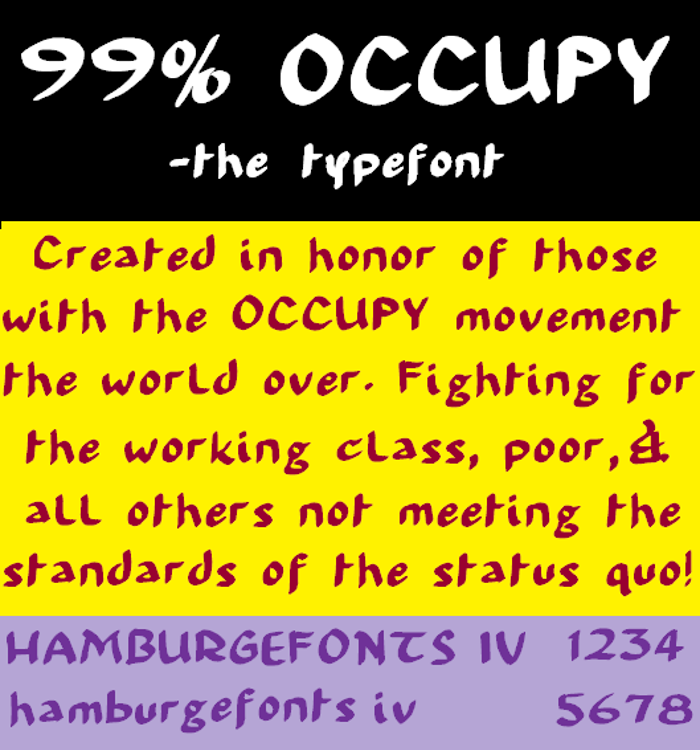
99 % OCCUPY Font
This font is named for the people great and small of the OCCUPY movement. The author of this font was a part of this movement.
People involved in this movement were sick and tired of the status quo and the richest 1% controlling just about everything...yeah, including even the government! They often referred to themselves as "the other 99%". This group ranged from the homeless to the ["former"] Middle Class, and even some wealthier individuals who were ready to ORGANIZE! A number of those past and present want the class system abolished...and not entirely without reason.
The movement had people join from all walks of life to camp out mostly in public lands and do marches for justice and fairness.
Yeah there were millionaires and billionaires as part of the OCCUPY movement, but they DIDN'T have the 'silver spoon syndrome' unlike most of their counterparts.
The Kansas City OCCUPY group camped out near the Liberty Memorial. The author lived nearby and furnished this group with supplies at times and camped with them a couple of times. This group is known today as KC-99. As an evident rebuttal, Downtown Kansas City, Missouri got a new nightclub named "ONE %".
About two of the samples:
1. "POWER TO THE ARTISTS..." (the default)
There was a tragic murder spree at the Charlie Hebdo magazine in France. "Hebdo" is French for "Weekly". The sattire publication was actually named after the Peanuts cartoon character Charlie Brown. The tragedy happened the same week the 99% OCCUPY font was getting it's final touches. "Je Suis CHARLIE" is French for "We Are CHARLIE". Keep in mind many who practice Islam know the value of free speech and support it. The so-called "Muslims" who attacked the publication were indeed the minority. This graphic was sadly the absolute very first time the 99% OCCUPY font was ever used. But to take a stand for the freedom to be heard; it was well worth it! Hey, that's what the OCCUPY movement fought for the most (and as of this writing still does)...not fame, nor fortune, but to be HEARD!
2.OCCUPY TILL IT HAPPENS
All graphics are in the 99% Occupy font at various sizes and colors. The concerns listed in the background are as follows left to right, up to down:
-true freedom
-"the labor movement with the REAL power it should have to bargain and ORGANIZE!"
-living wages
-"youth education not child labor"
-fair representation
-qualification based only on merit
-ending all forms of slavery
-and finally "FUN FOR EVERYONE...not just the status quo!"
works for a 99% OCCUPY Light to be introduced before the end of the year 2015. A italic and/or cursive for this font may also be created.